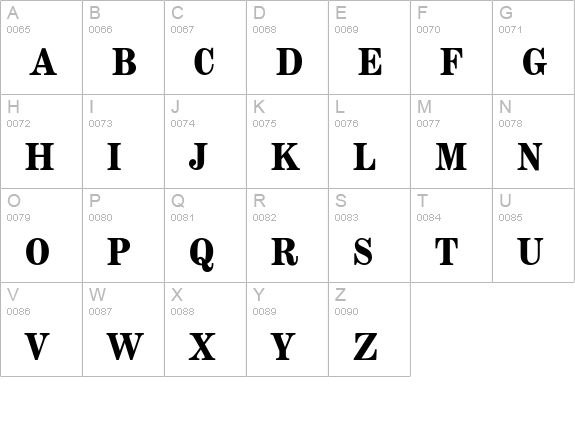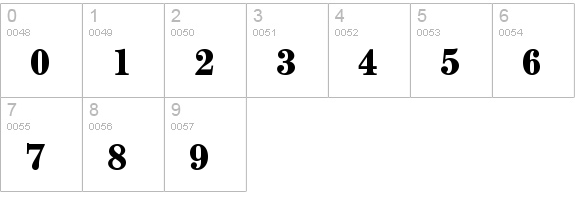
ModernExtendedEF-Bold Font Details
ModernExtendedEF-Bold is a strong, high-contrast variant in the ModernExtendedEF typeface family \xE2\x80\x94 well suited to headlines, attention-grabbing titles, and strong calls-to-action.
ModernExtendedEF-Bold is a striking and contemporary font that exudes confidence and sophistication. With its sleek lines and bold appearance, this font is perfect for making a statement in any design project. Whether you are creating a logo, poster, or website, ModernExtendedEF-Bold will command attention and leave a lasting impression. What's even better is that ModernExtendedEF-Bold is available for free download at FontsMarket.com. This means you can easily access this stylish font and incorporate it into your work without any cost. Elevate your designs with ModernExtendedEF-Bold and make a bold impact today.